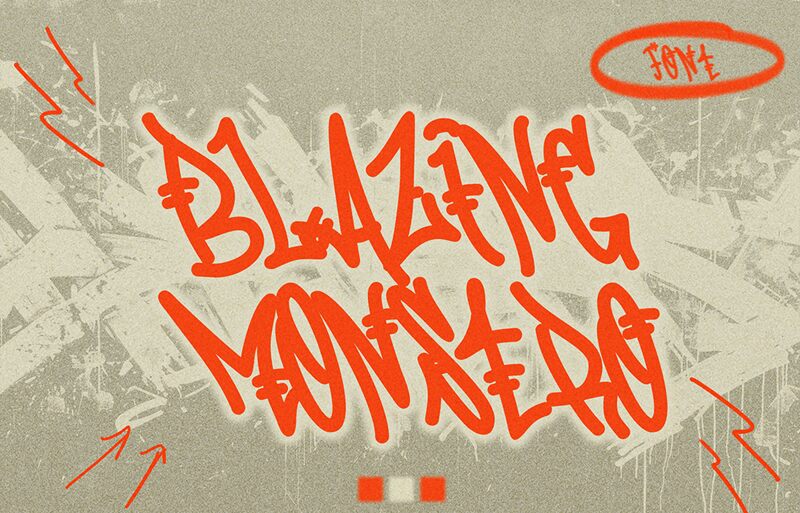
Blazing Monstro font is a graffiti-inspired typeface designed by Cikareotype Studio. This free font boldly expresses an energetic urban aesthetic and brings a bold presence to any visual project. Its letters display street culture influence with a contemporary rebellious vibe.
Due to the versatility of its elements, users can make the most out of this typography when adopting it to their various artworks. Its dynamic and expressive characters make Blazing Monstro a suitable choice for logo design, branding, posters, packaging, flyers, magazine covers, apparel design, book covers, titles, and subtitles. It’s also great for visual communication both in print and digitally.